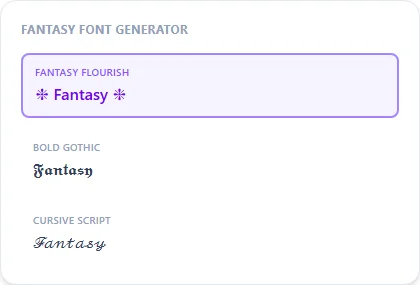
Fantasy Font Generator
Fantasy/elvish-style requests usually mean ornate, flowing lettering rather than any specific invented alphabet. Gothic and script Unicode styles with decorative framing get closest to that feel.
Fantasy Flourish frames your text with ornamental symbols; Bold Gothic and Ancient Runes underneath add the heavier, more mythical letterforms.
Fantasy Font Generator style examples: Fantasy Flourish, Bold Gothic, Cursive Script, rendered on the word "Fantasy"
Evoking fantasy without a constructed language
Real fictional writing systems like Tolkien's Tengwar are fully constructed alphabets with their own rules, completely separate from Latin letters. No Unicode substitution can reproduce them. This generator instead swaps your letters for ornate-looking Unicode characters and adds decorative framing, aiming for a mythical, storybook feel rather than any specific invented script.
Ancient Runes vs. Bold Gothic
Ancient Runes draws on angular, rune-like Unicode characters for a more otherworldly, carved-stone look. Bold Gothic leans on heavier blackletter for a more medieval-fantasy feel. Fantasy Flourish wraps either with ornamental symbol framing for extra polish.
Is this an actual constructed language like Tolkien's Elvish?
No — it substitutes Latin letters with ornate-looking Unicode characters and symbols rather than translating into any real or fictional writing system.
Good for a D&D character name or fantasy username?
Yes, Ancient Runes or Bold Gothic paired with Fantasy Flourish both read well for that.
Can I use this for a fantasy book cover mockup?
As a quick text preview, yes — for a final print-ready cover you'd still want a real display font and design tool, since these are plain Unicode substitutions, not vector artwork.
Which style is closest to a mystical rune-stone look?
Ancient Runes is the closest match, drawing on angular Unicode characters that read as carved or otherworldly rather than handwritten.